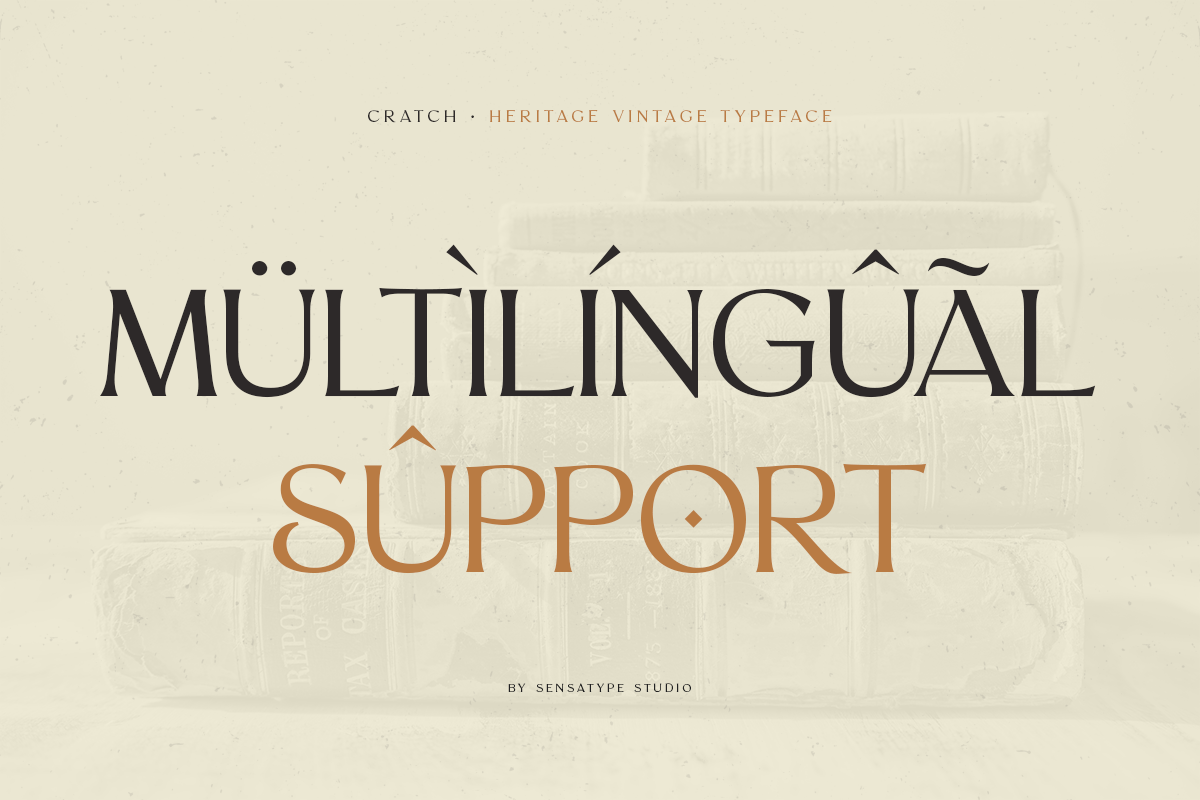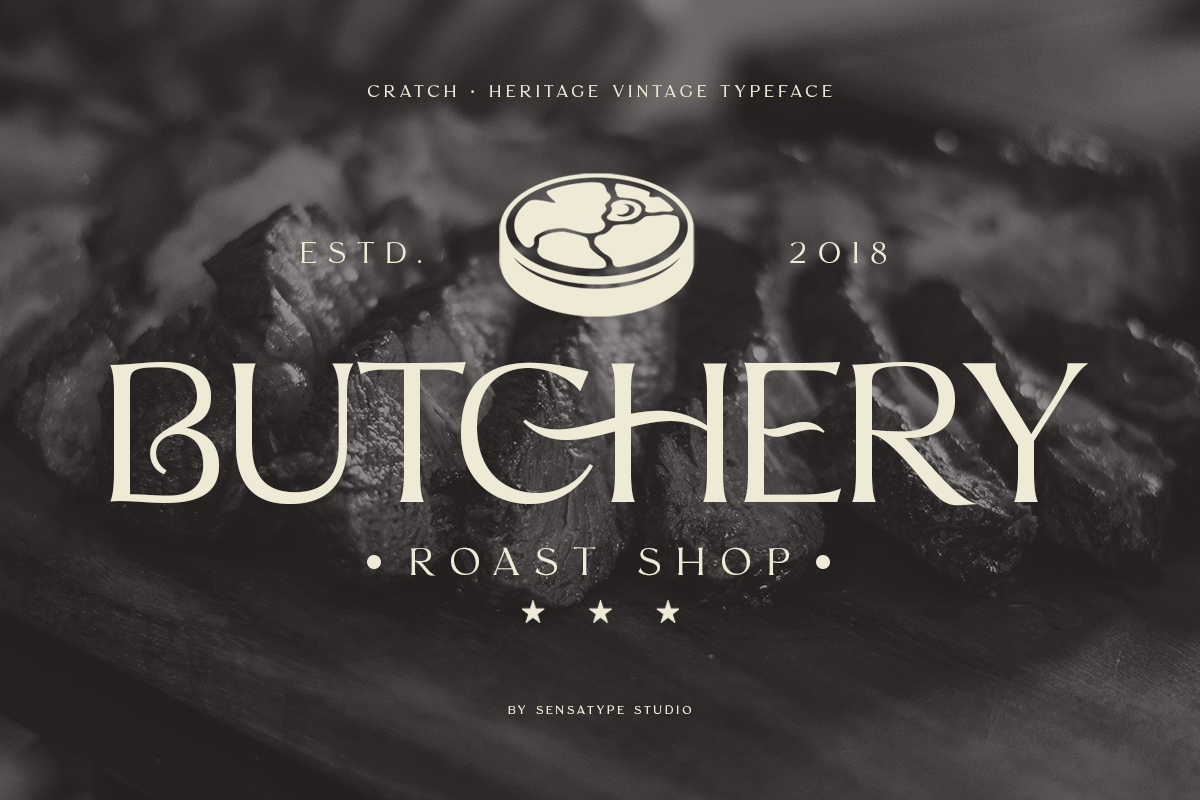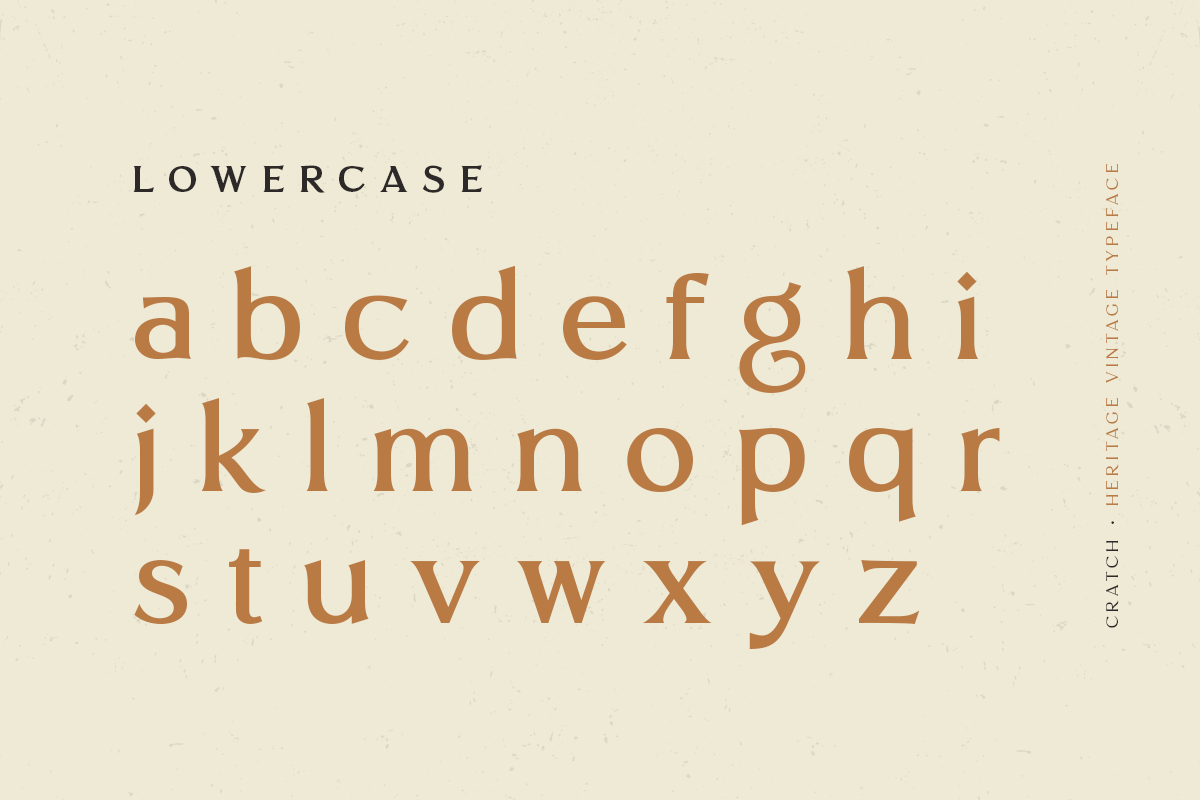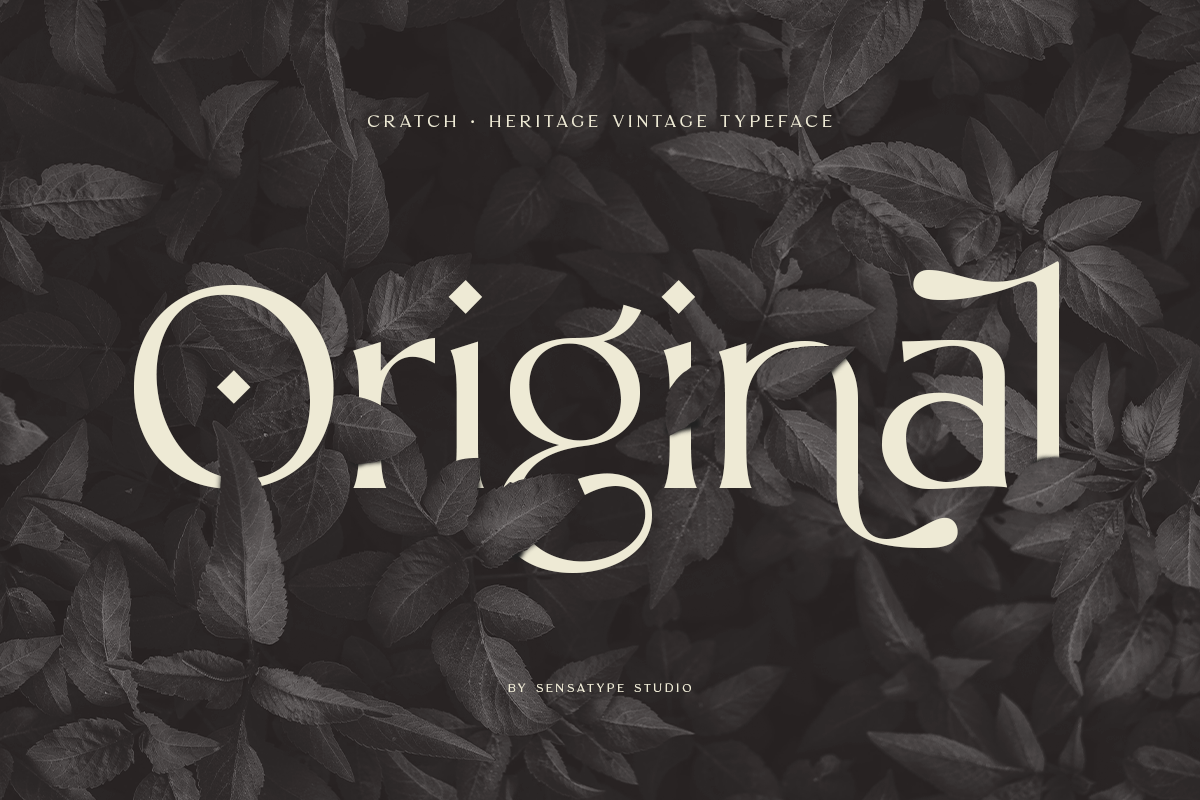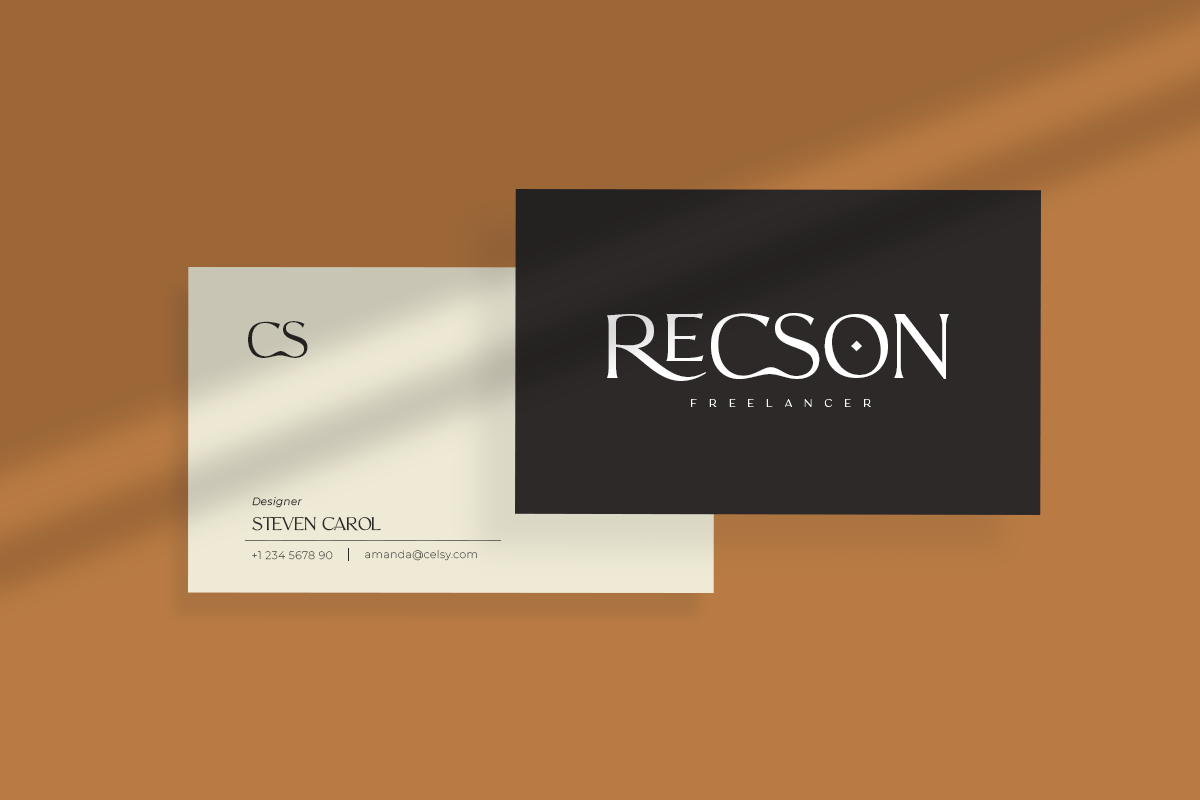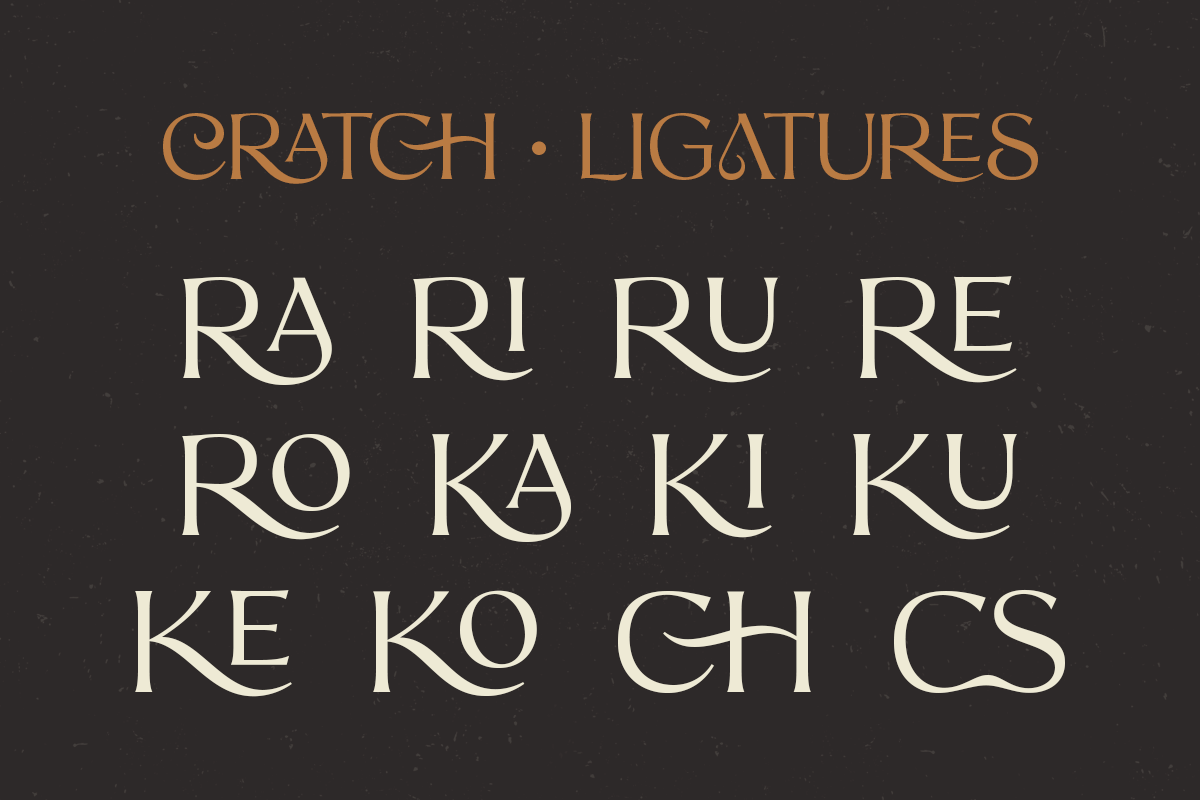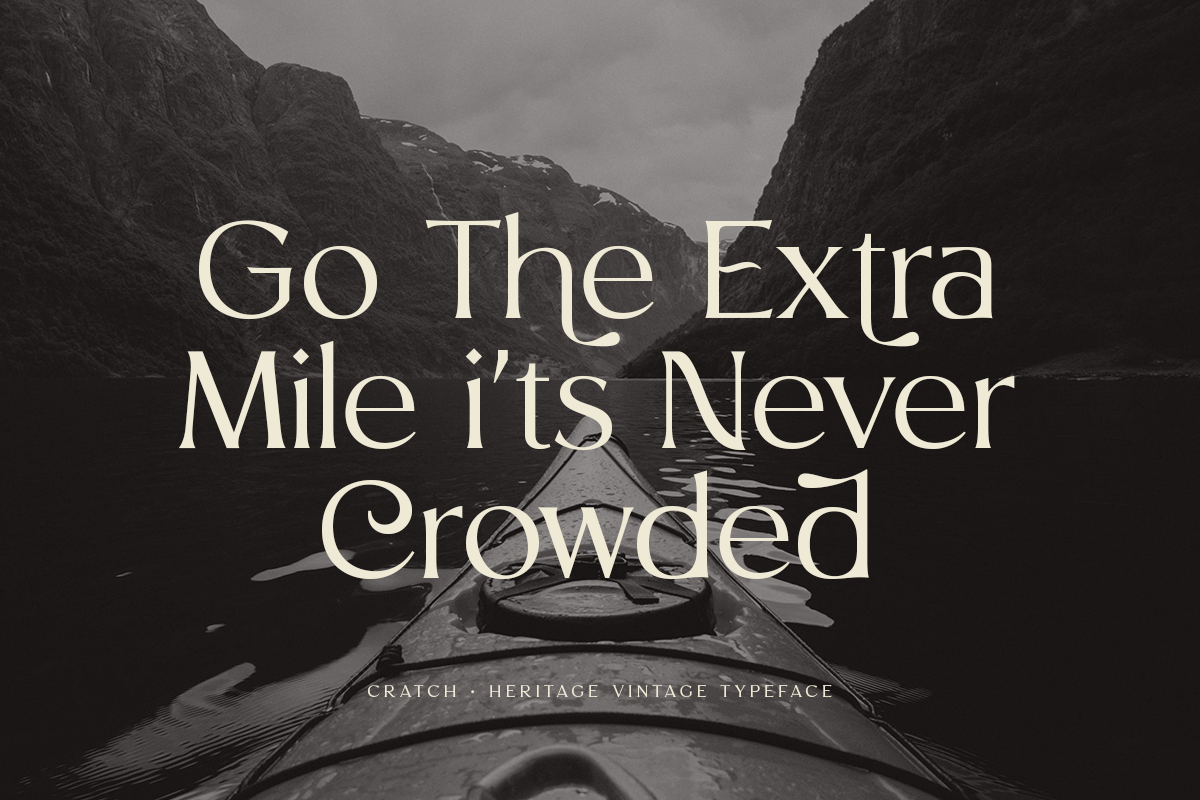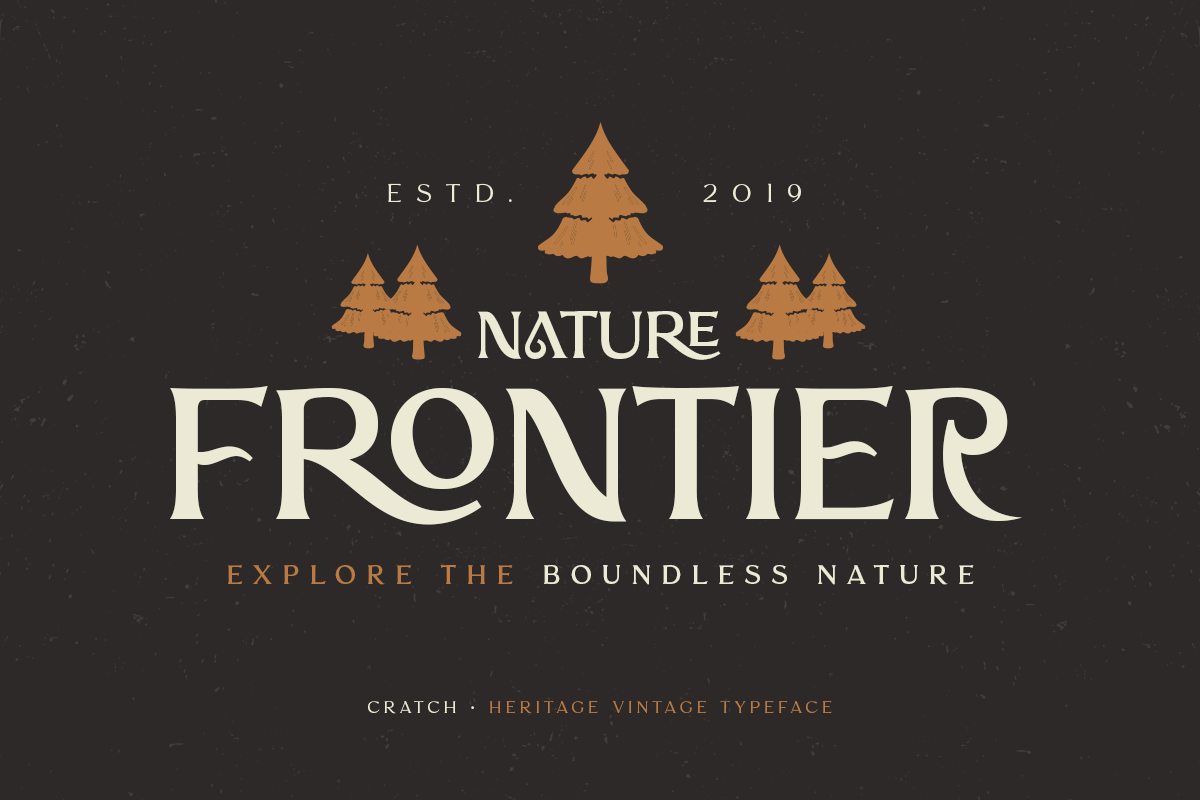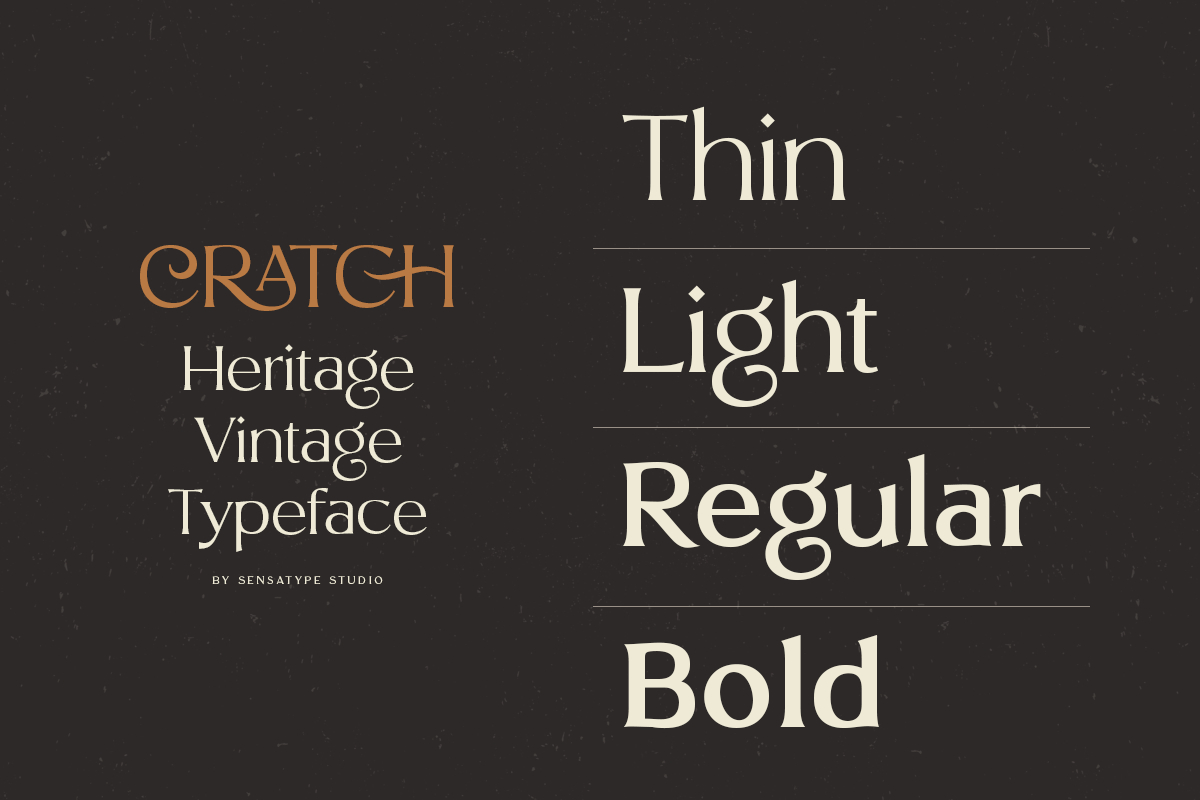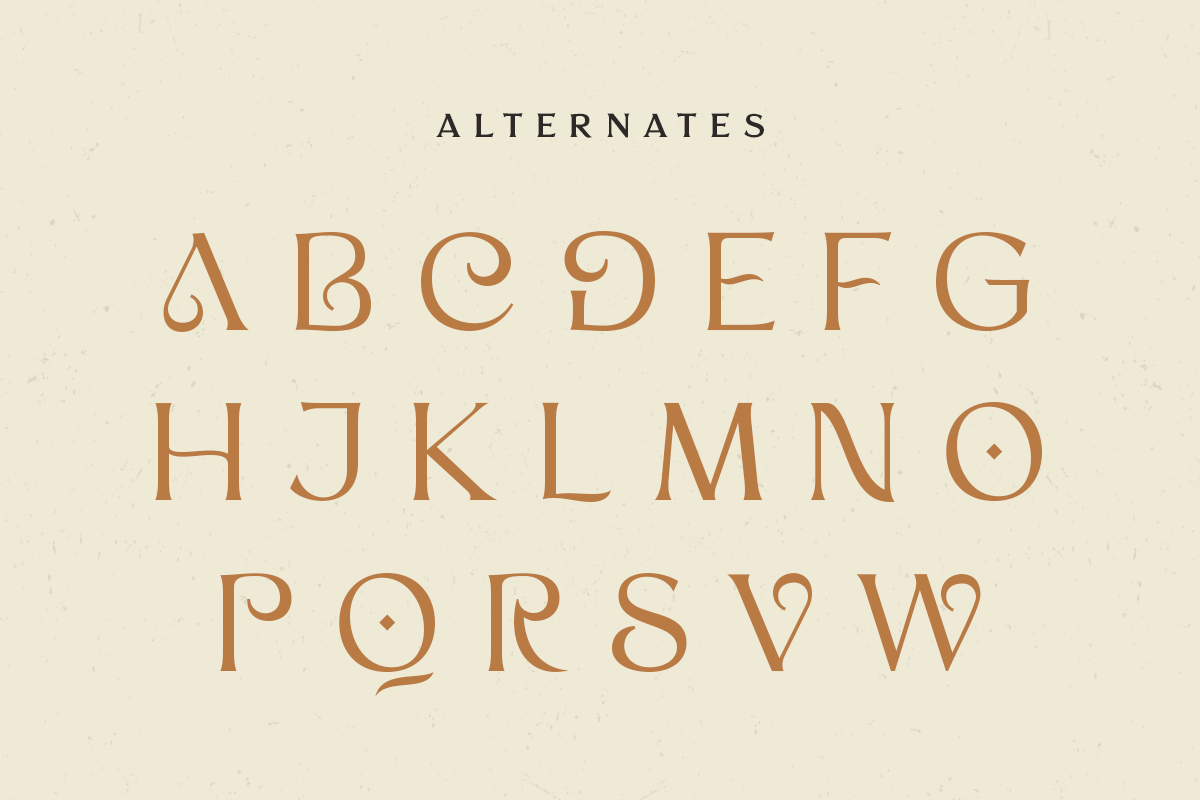
CRATCH - Heritage Vintage Typeface
Cratch Vintage font is a well-balanced contemporary font with a fancy, unique, and versatile heritage vintage serif font that you can combine to get any variations and unique shapes easily just in seconds. It is a serif display font with moderate contrast that perfect for branding projects, logo, wedding designs, social media posts, advertisements, product packaging, product designs, label, photography, watermark, invitation, stationery, and any projects, it makes with a high level of legibility.
- Character set A-Z
- Stylistic alternates